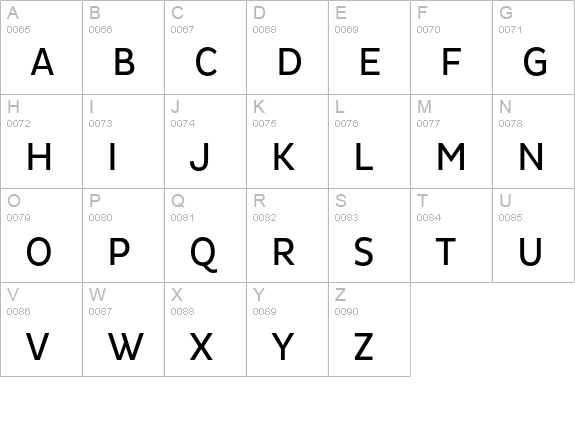
Pluto Sans Cond Regular is the standard, neutral, condensed-width variant in the Pluto typeface family \xE2\x80\x94 well suited to general body text, paragraphs, and standard typographic work.
Pluto Sans Cond Regular font is a modern and versatile typeface that exudes sophistication and elegance. With its clean lines and balanced proportions, this font is perfect for a wide range of design projects, from branding to editorial layouts. The sleek and contemporary look of Pluto Sans Cond Regular makes it ideal for both digital and print applications. Best of all, Pluto Sans Cond Regular is available for free download at FontsMarket.com. This means that you can easily access this high-quality font without having to worry about any costs. Whether you're a professional designer or a casual enthusiast, Pluto Sans Cond Regular is a must-have addition to your font collection. Download it today and elevate your designs with this stylish and timeless typeface.